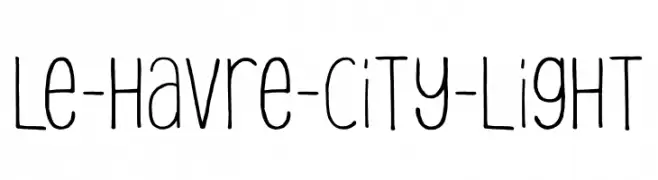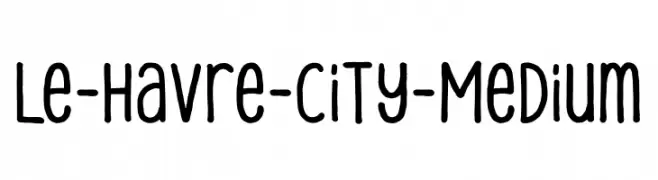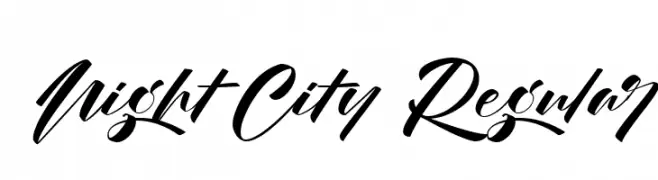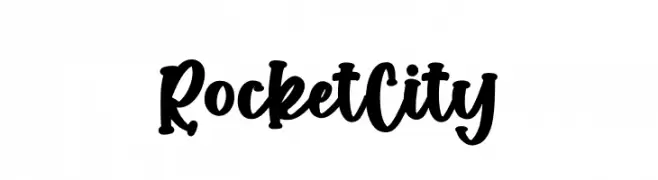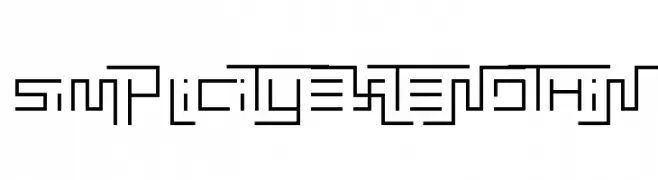
A futuristic, geometric font with rounded edges and a sleek design.
A modern, elegant script font with flowing, cursive characters.
A bold, distressed font with a rugged, vintage texture.
A bold, expressive handwritten font with playful curves and thick strokes.
A playful, handwritten font with rounded edges and consistent stroke widths.
A playful handwritten font with tall, narrow letterforms and a light, airy feel.
A geometric, linear font with thin strokes and a minimalist style.
A lively handwritten font with fluid, energetic strokes and a playful style.
A bold, cursive font with dynamic strokes and a modern, handwritten style.